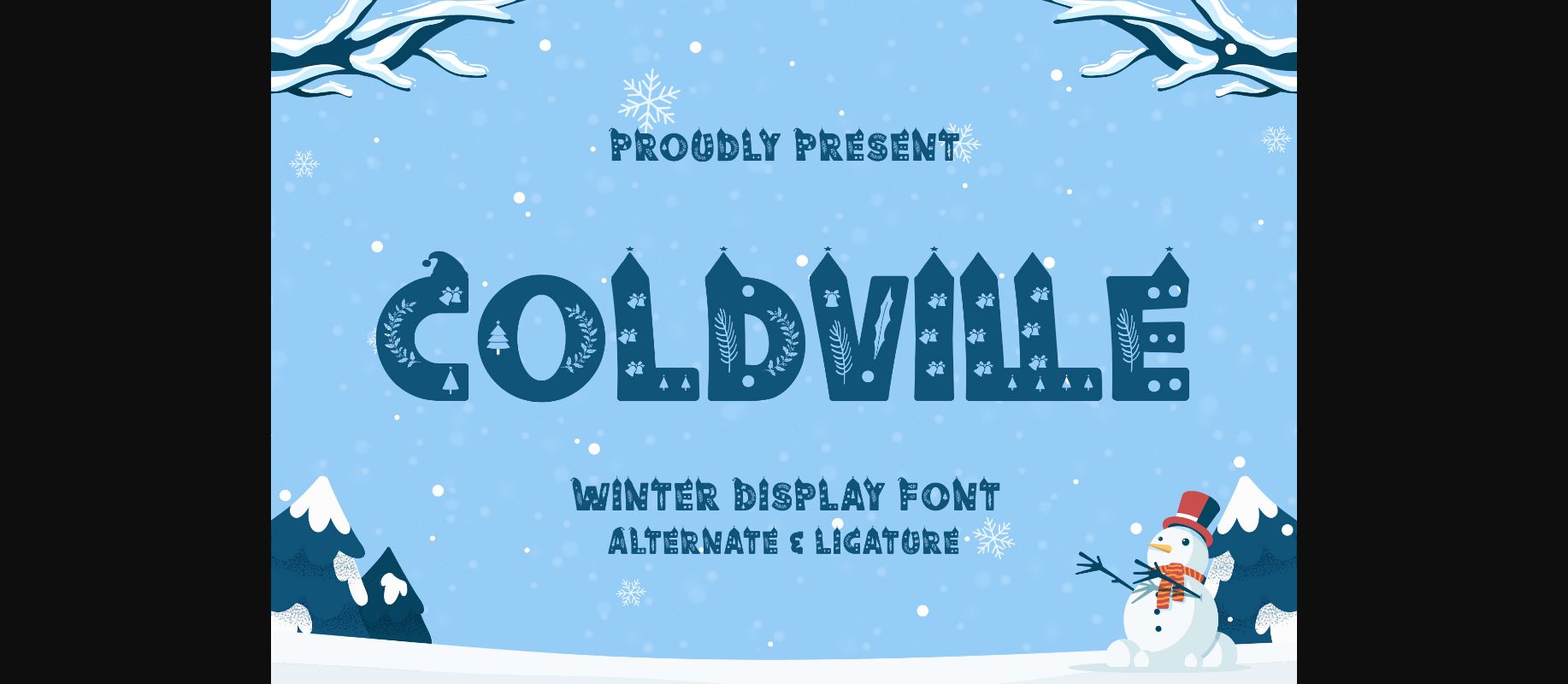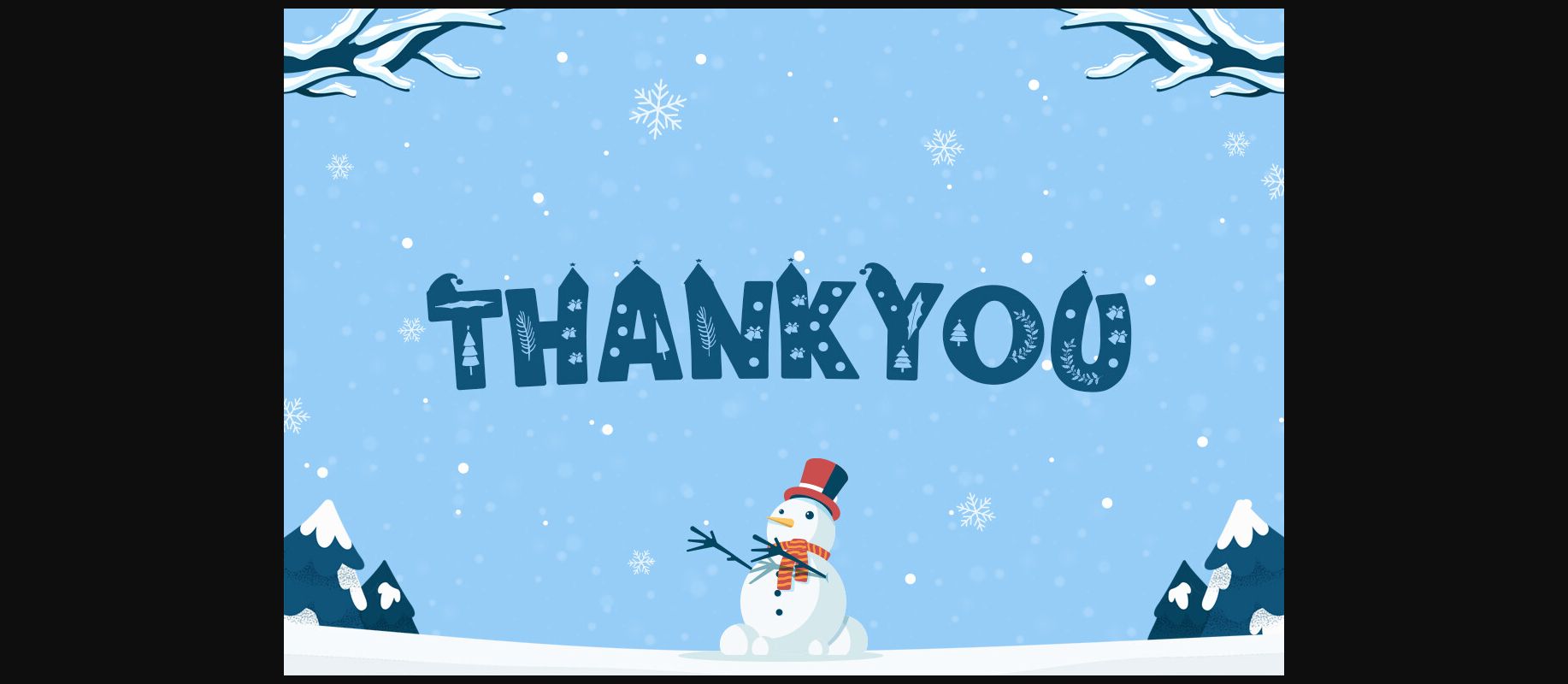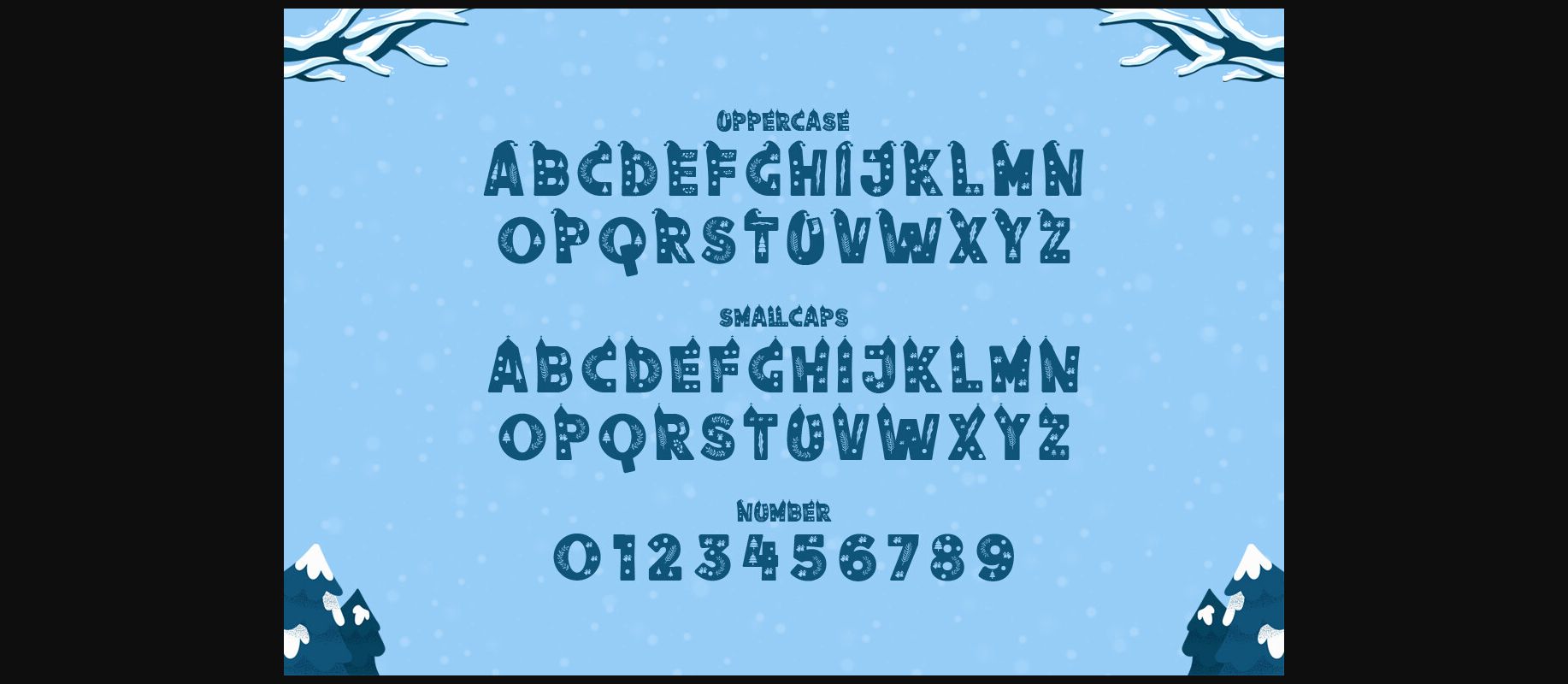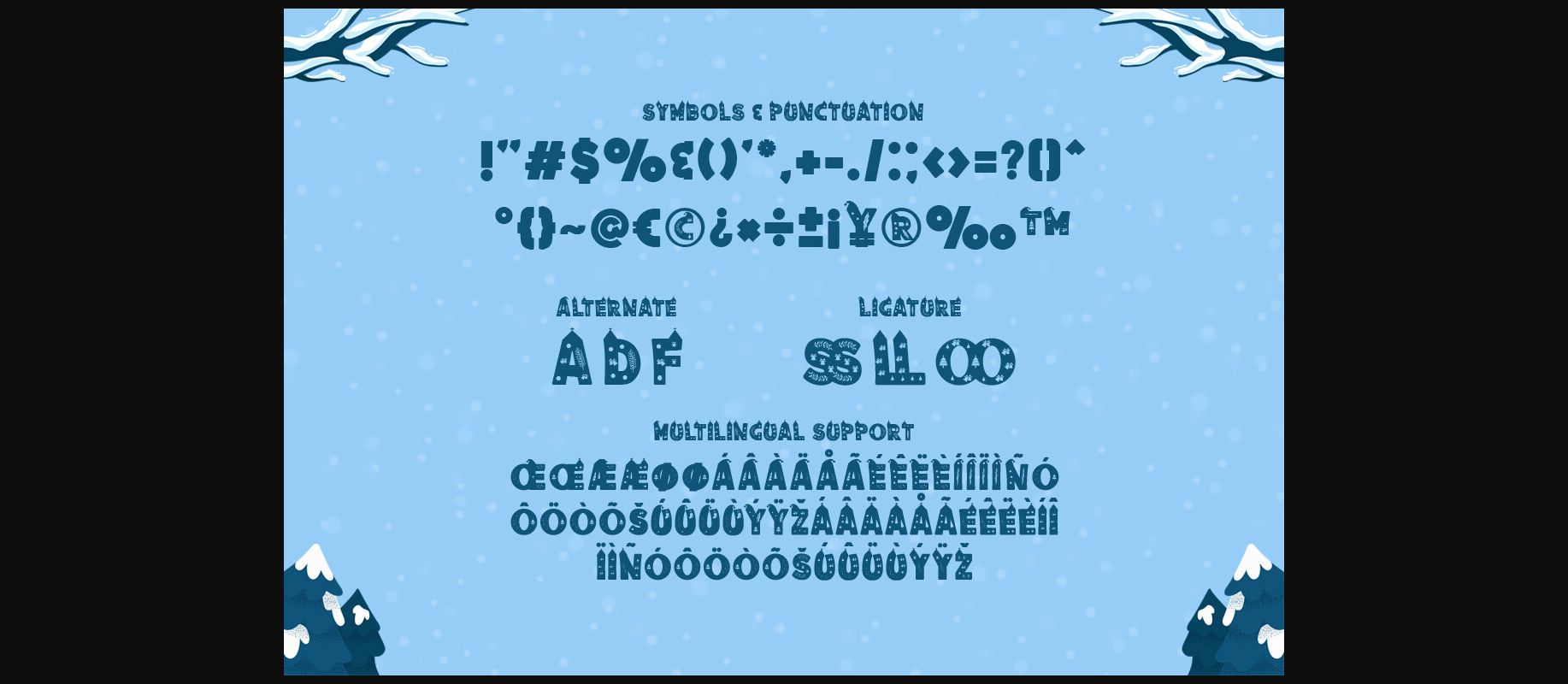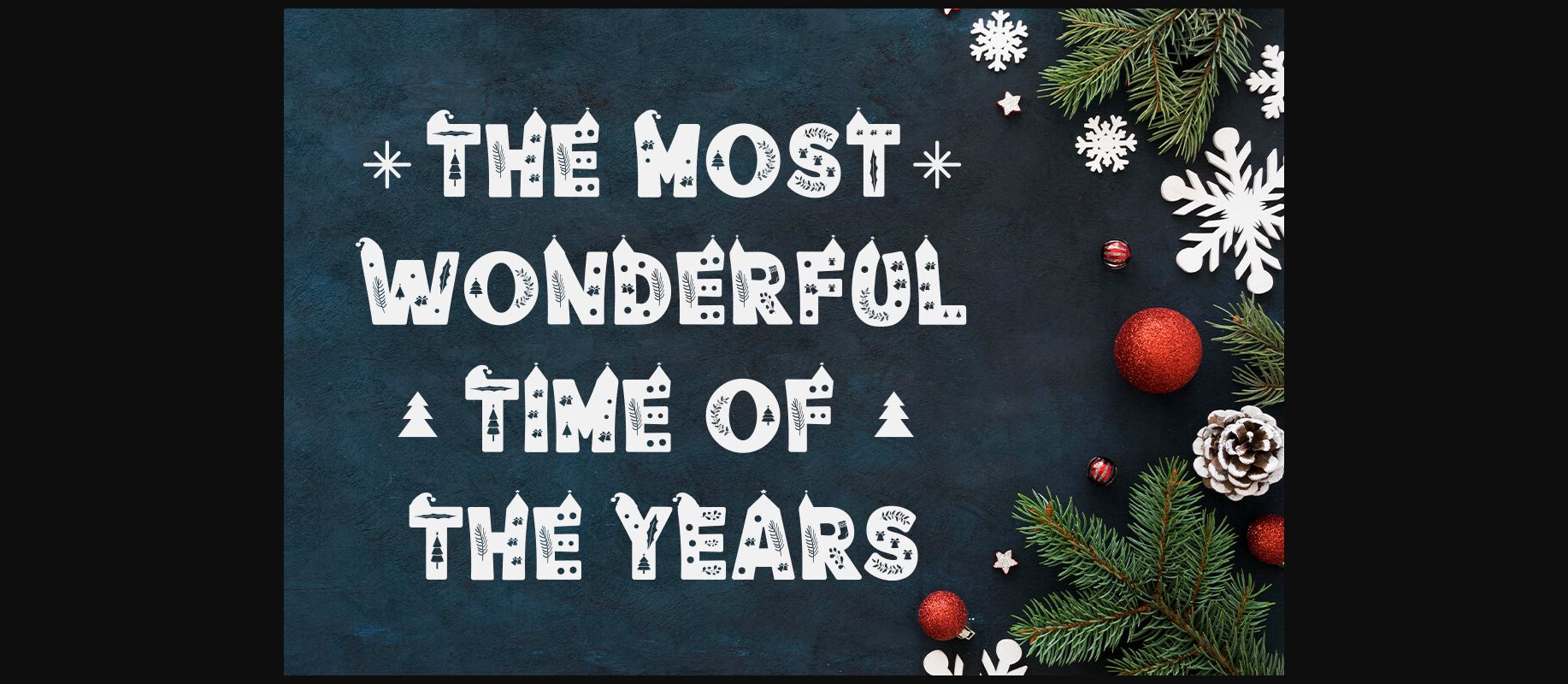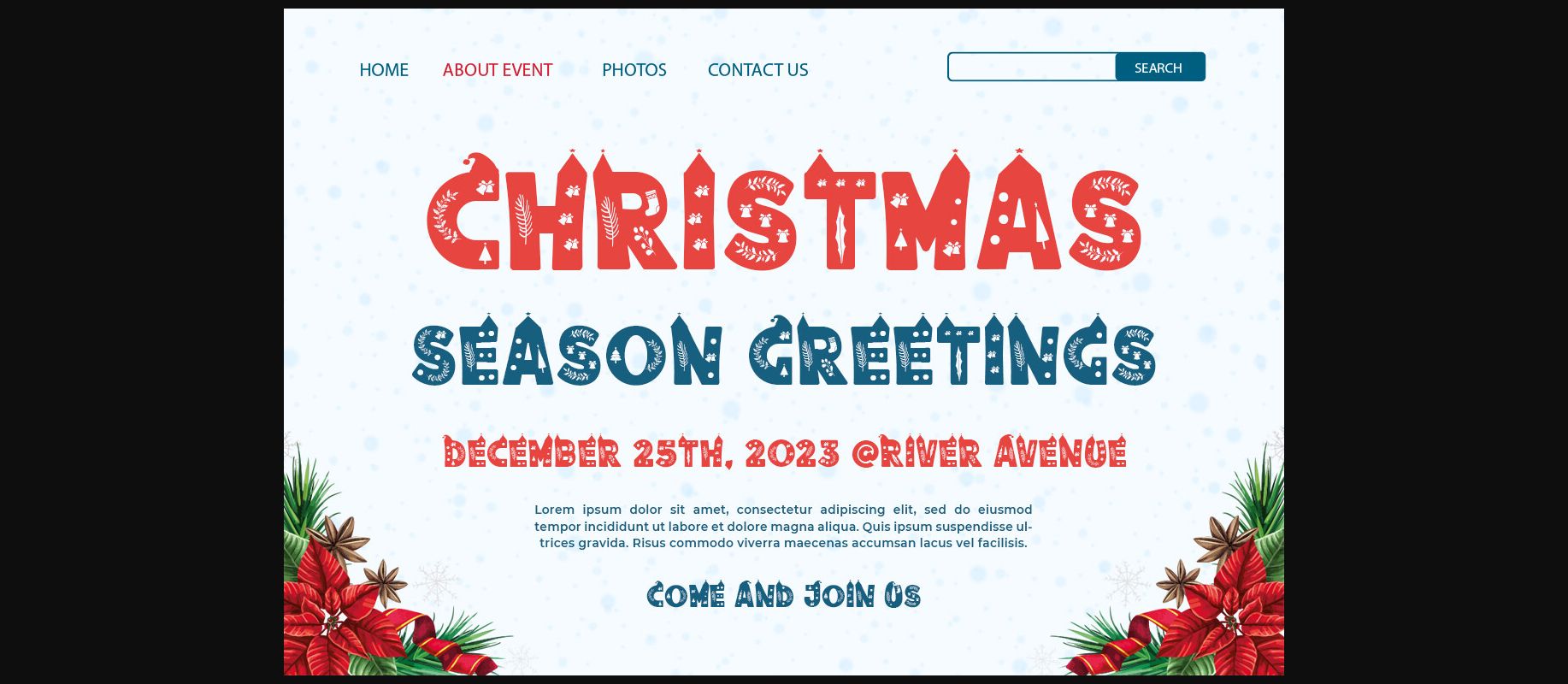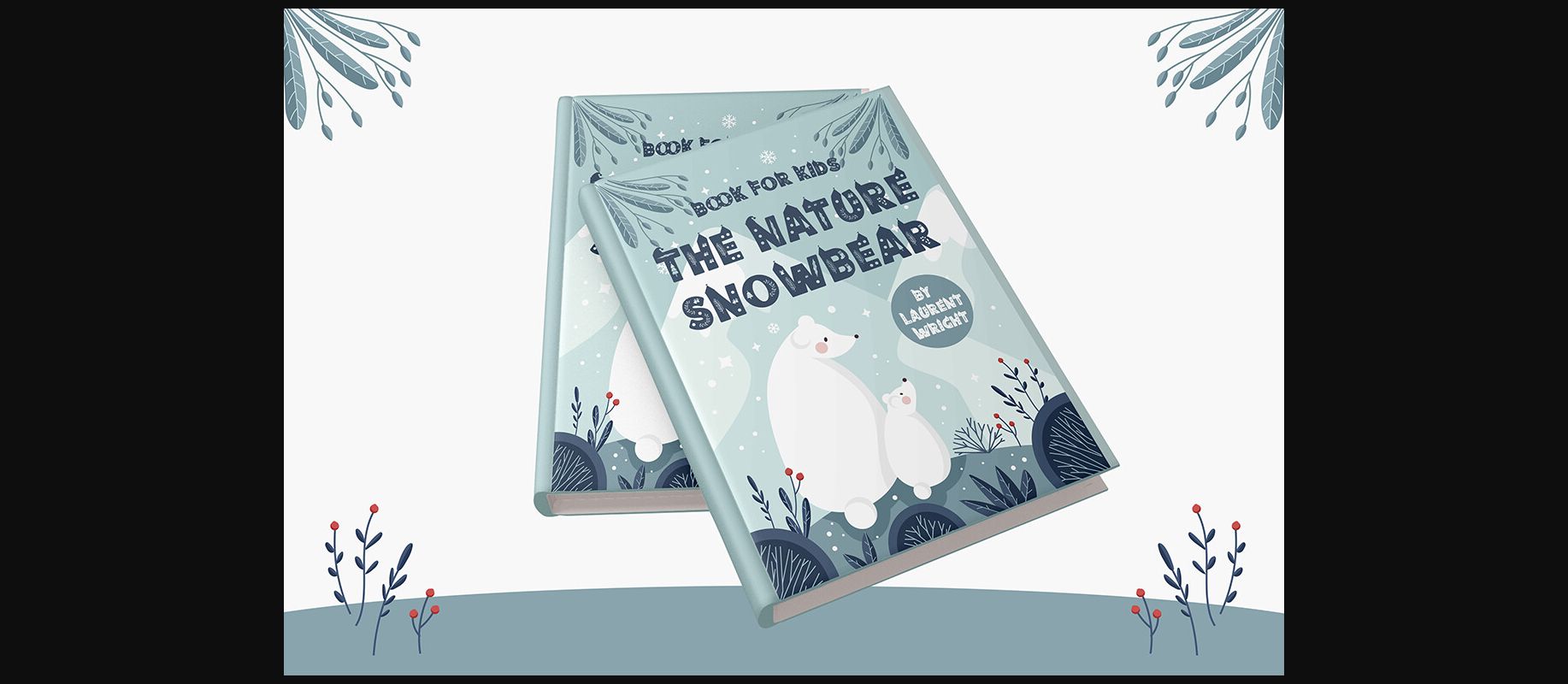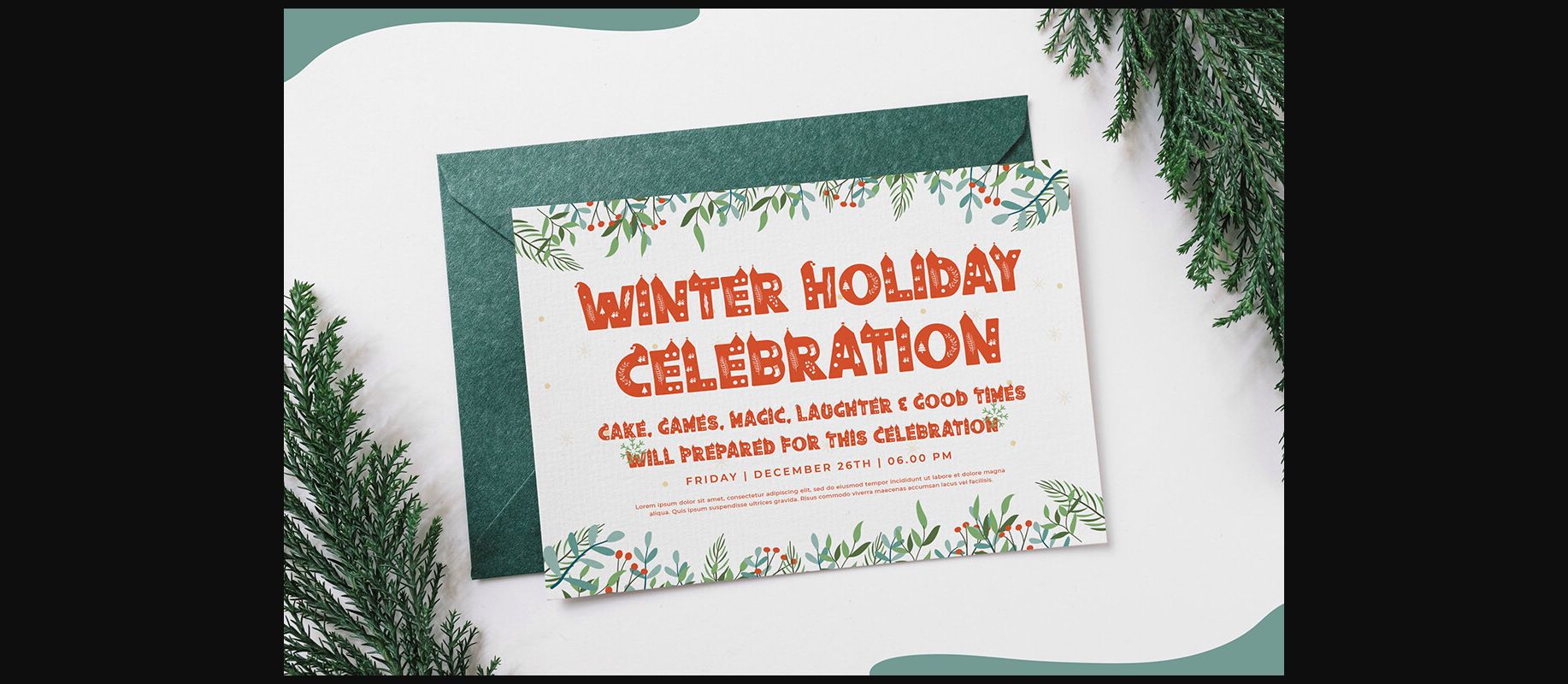
Coldville Font
About Coldville Font
Introducing “Coldville” – a winter display font that captures the crisp beauty and icy charm of the season with its frosty letterforms and wintry aesthetics.
With its bold strokes and snow-capped details, “Coldville” brings the magic of winter to life in every character. Each letter is meticulously crafted to evoke images of snowy landscapes and frosty mornings, making it perfect for seasonal branding, holiday promotions, winter-themed posters, and more.
Embrace the chill of “Coldville” as it effortlessly enhances your winter designs. Whether you’re creating festive logos, cozy seasonal greetings, snowy event invitations, or frosty social media graphics, this font will captivate your audience with its cold and wintry style.
Step into a winter wonderland with “Coldville” and let your designs sparkle with the magic of the season.